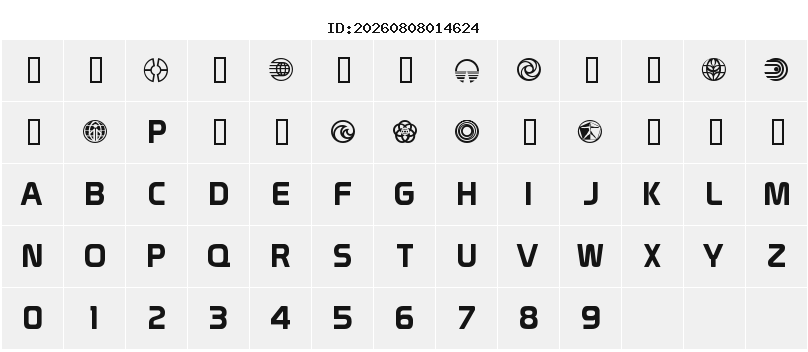
Prototype Pavilion.ttf is a modern, elegant sans-serif font designed for ultimate readability and visual harmony. Perfect for branding, headlines, web design, and print materials.